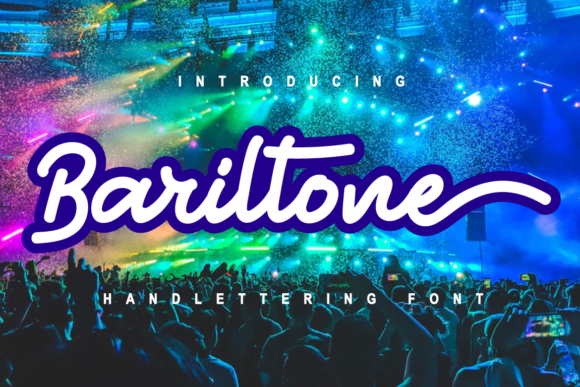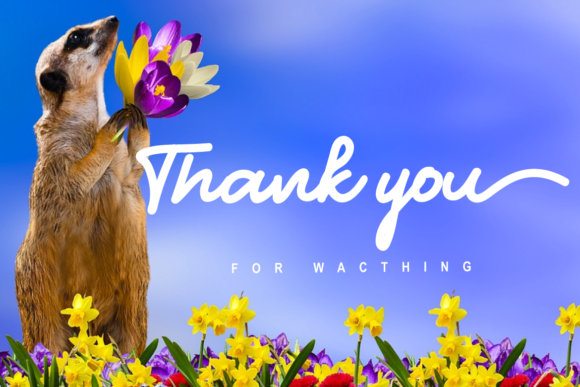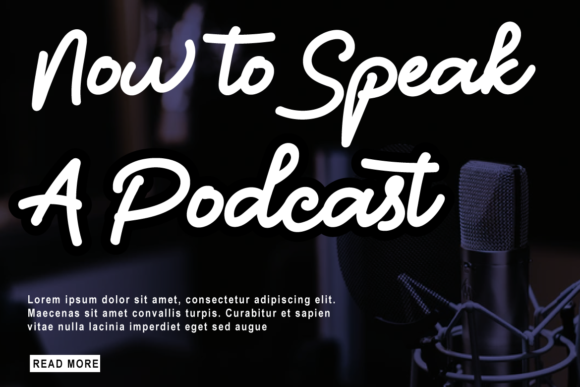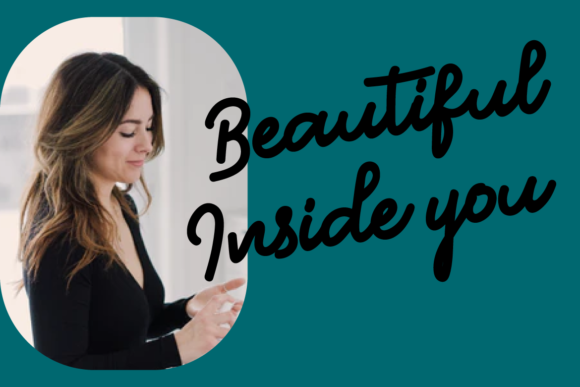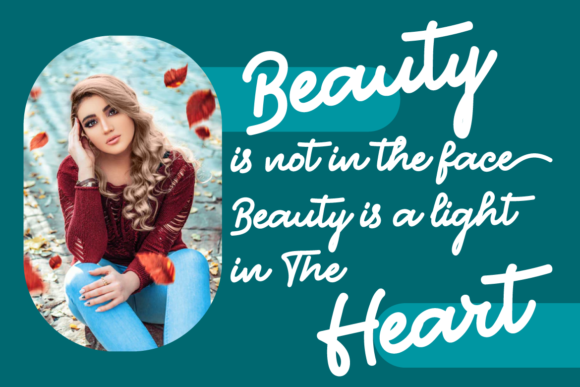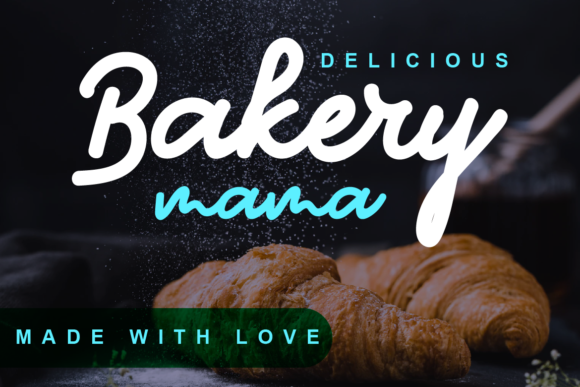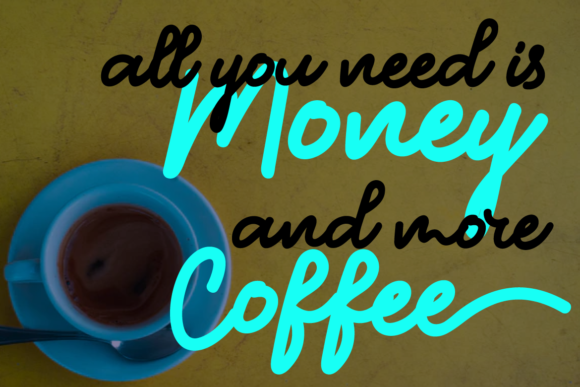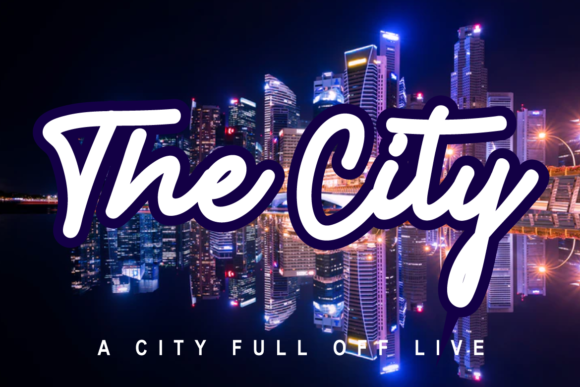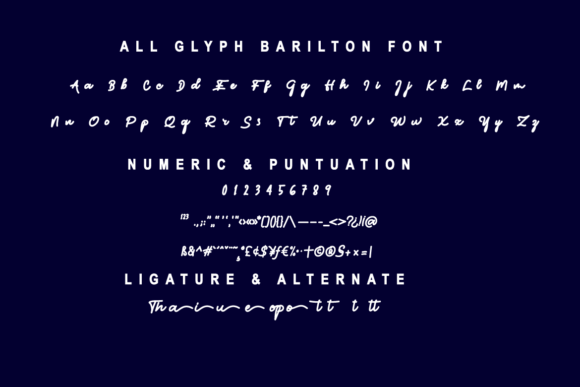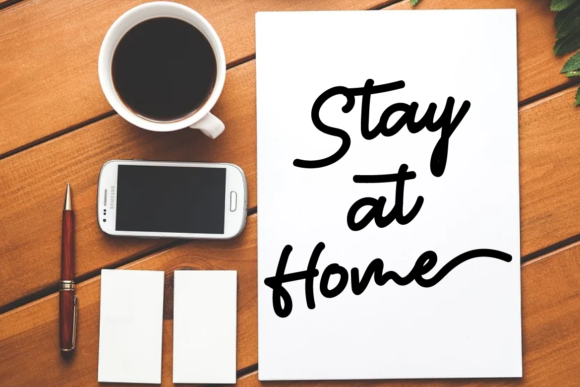
Bariltone Font
About Bariltone Font
Introducing “Bariltone,” a cursive handwritten font that exudes elegance and charm. With its graceful strokes and sophisticated style, this font is perfect for adding a touch of refinement to your favorite projects.
The elegant touch of “Bariltone” sets it apart, making it ideal for creating stunning wedding invitations, beautiful stationery art, eye-catching social media posts, and so much more. The flowing, cursive letterforms lend a sense of grace and sophistication, making it a perfect choice for projects that require a touch of elegance.
Each letter in “Bariltone” is meticulously crafted, creating a harmonious and balanced appearance. The smooth and fluid lines give the font a pleasing flow, making it visually appealing and easy to read. Whether you’re designing for print or digital media, “Bariltone” effortlessly adds a touch of class to your creations.
One of the great features of “Bariltone” is its versatility. It can adapt to various design styles and contexts, allowing you to explore different creative possibilities. From formal wedding invitations to stylish branding materials, this font is a versatile choice that can elevate any project.
The ravishing style of “Bariltone” captivates the eye and adds a touch of sophistication to your designs. Its versatility makes it suitable for a wide range of applications, ensuring that you can create stunning visuals across different platforms.
Whether you’re working on personal projects or professional designs, “Bariltone” is a font that will impress and delight. Its elegant and refined look makes it a go-to choice for those seeking a touch of sophistication in their designs.
Embrace the ravishing style of “Bariltone” and witness how it transforms your designs into beautiful works of art. Let its elegance and charm captivate your audience, leaving a lasting impression.
Fall in love with the exquisite style of “Bariltone” and unlock its potential to create stunning visuals. Use it to craft breathtaking wedding invitations, design captivating stationery art, and create eye-catching social media posts that stand out from the crowd.
With “Bariltone,” your favorite projects will shine with elegance and sophistication. Its ravishing style will elevate your designs to new heights, making them truly unforgettable.
So, immerse yourself in the world of “Bariltone” and let its elegant touch inspire your creativity. Experience the beauty and versatility of this font as you bring your ideas to life, and enjoy the remarkable impact it has on your designs.